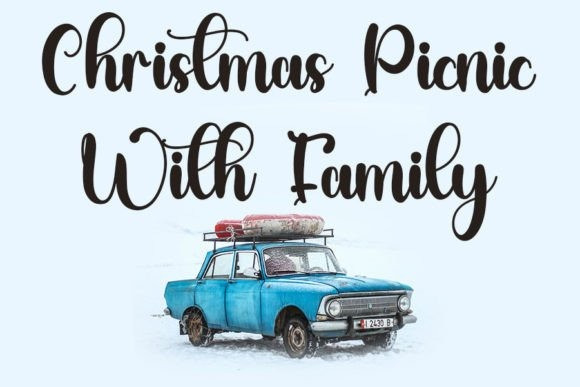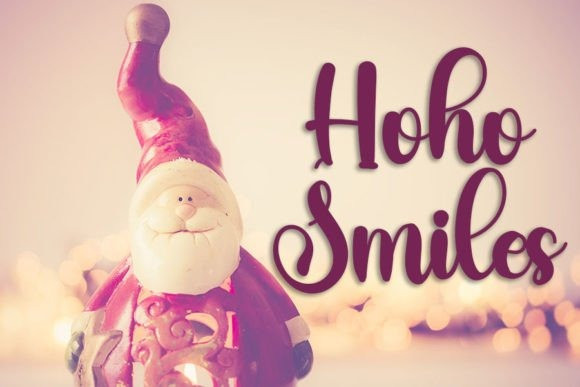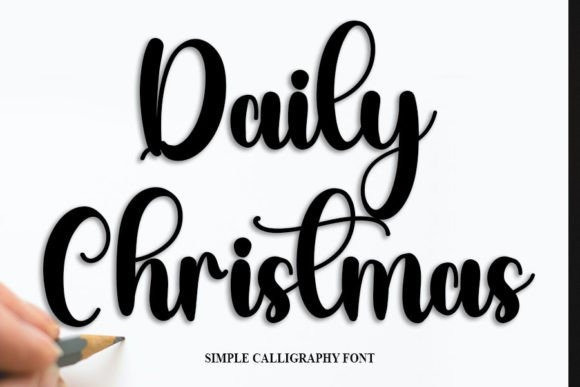
Daily Christmas Font
Daily Christmas Font is an enchanting handwritten font. This versatile script font has a wide spectrum of applications ranging from greeting cards to headlines and is guaranteed to add a romantic feel to your next project.